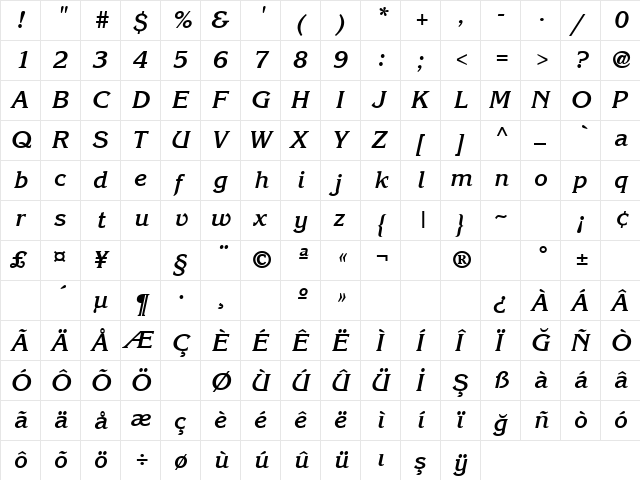
TR Eagles Bold Italic
Design Context for TR Eagles Typeface
TR Eagles is a composed and adaptable typeface that performs quietly and consistently across a wide range of design contexts. Its italic angle brings a sense of urgency and motion to the letterforms. The heavy weight commands attention and anchors typographic hierarchies.
Pro Tip: Use TR Eagles for emphasis, pull quotes, and subheadings where its slanted energy can add rhythm to the layout.